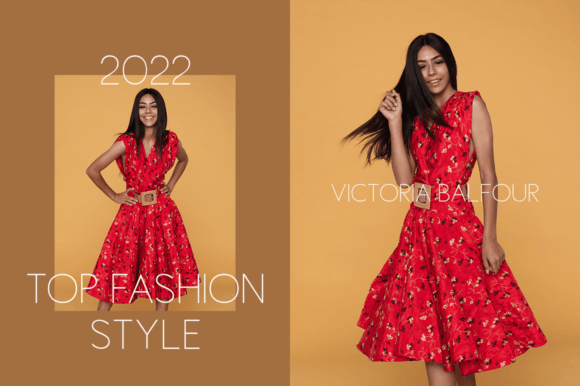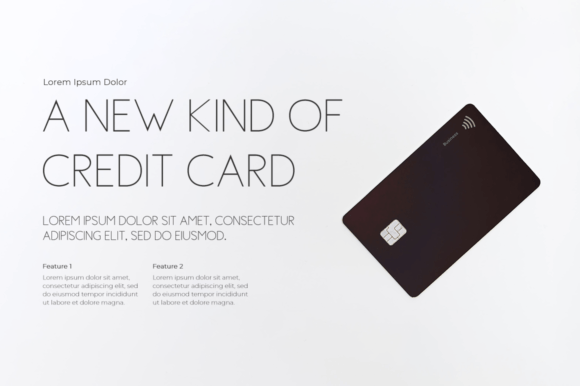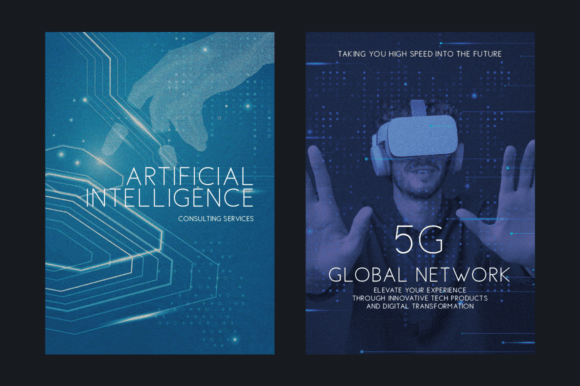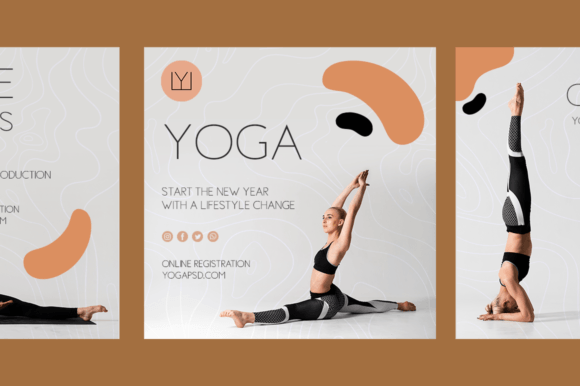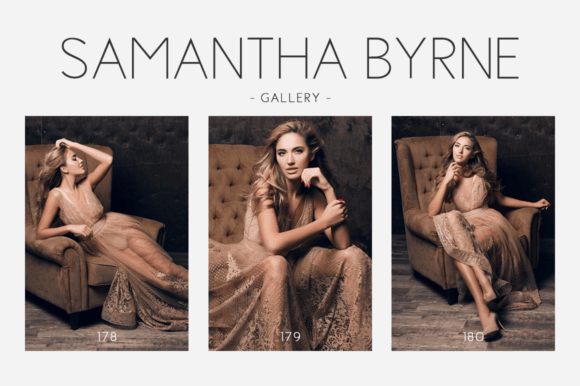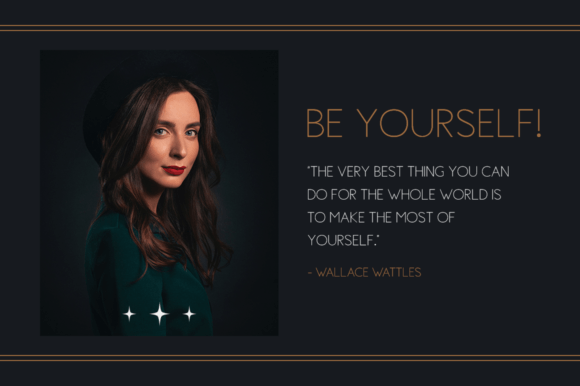
Introducing Cinnamon Font: The Perfect Addition to Your Design Arsenal
Are you tired of using the same old fonts in your designs? Look no further than Cinnamon Font, a minimal and modern sans serif font that’s sure to elevate your creative projects. With its clean lines and sleek aesthetic, Cinnamon is the perfect choice for designers and crafters looking to add a touch of sophistication to their work.
What Makes Cinnamon Font So Special?
Cinnamon Font is a versatile and highly adaptable font that can be matched to an incredibly large set of projects. Whether you’re working on a logo, brochure, or social media graphic, Cinnamon is the perfect choice. Its modern sans serif design ensures that your text is clear and easy to read, while its stylish aesthetic adds a touch of elegance to any design.
Key Features of Cinnamon Font
Here are just a few of the key features that make Cinnamon Font so special:
- Minimal and modern design: Cinnamon Font features a clean and sleek sans serif design that’s perfect for modern designs.
- Highly adaptable: Cinnamon Font can be matched to an incredibly large set of projects, making it a versatile addition to your design arsenal.
Here are a few tips for getting the most out of Cinnamon Font:
- Pair it with other fonts: Cinnamon Font pairs well with a wide range of other fonts, so don’t be afraid to experiment with different combinations.
- Use it for headings and titles: Cinnamon Font is perfect for headings and titles, where its bold and stylish aesthetic can really make an impact.
- Experiment with different colors: Cinnamon Font looks great in a wide range of colors, so don’t be afraid to experiment and find the perfect color for your design.